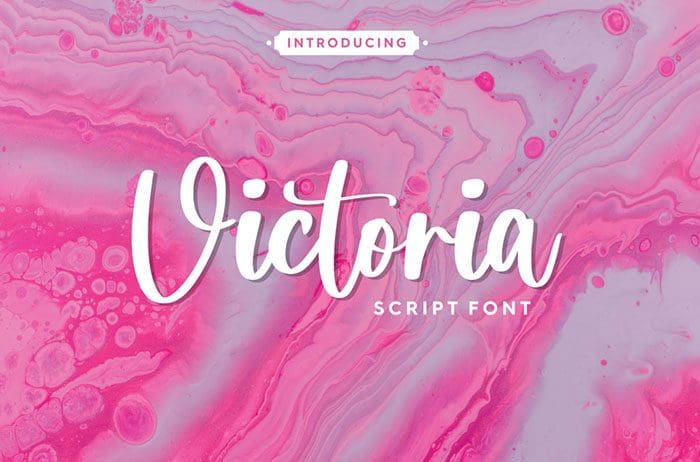
Victoria Modern Script Font
Victoria modern script font is a embodies fun, quirkiness and authenticity. This enchanting script font will turn any creative idea into a true standout. Designed this font by Balpirick Studio. You can also search more freeĀ Script Fonts.